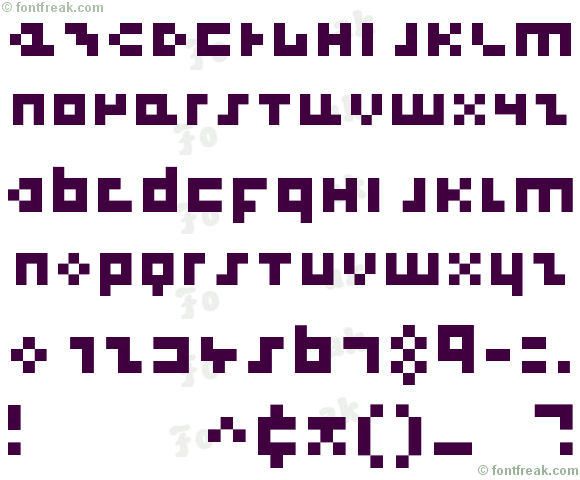
About Cooll Three Pixels
Introducing the Cooll Three Pixels font by Levi, an engaging display typeface that captures attention with its unique pixelated style. As a decorative font, Cooll Three Pixels showcases a playful design that is both modern and retro, blending digital aesthetics with a charmingly quirky character. The font features a uniform stroke weight that provides a clean and cohesive appearance, while the slightly rounded corners add a touch of friendliness to its personality. The spacing is thoughtfully designed, ensuring that each letter stands out clearly, making it ideal for various creative applications.
Perfect for graphic designers and small business owners, Cooll Three Pixels is an excellent choice for a variety of projects. Its distinctive look makes it ideal for eye-catching movie posters, where boldness and creativity are essential. Additionally, it can be used to create vibrant restaurant menus that convey an inviting and fun atmosphere. The font also shines in the realm of social media graphics, where it can add a playful touch to promotional materials. Furthermore, it serves as an excellent option for event flyers, particularly for gatherings aimed at younger audiences or tech enthusiasts.
The target audience for this font includes content creators looking to elevate their design projects with a unique flair, as well as anyone seeking a fresh typeface that stands out from more conventional options. The Cooll Three Pixels font free download offers accessibility to those who appreciate innovative design without the constraints of licensing fees.
What truly sets Cooll Three Pixels apart is its ability to balance whimsy and clarity, making it a versatile choice for anyone seeking to inject personality into their work. With its distinct pixelated charm, this font is sure to leave a lasting impression on viewers and enhance any design project.
Author Levi